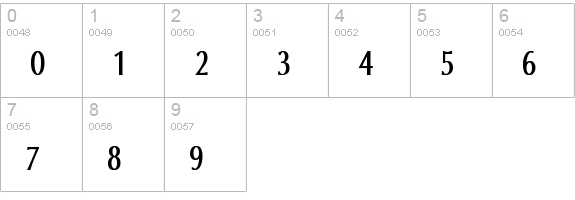
Oxford Cn Bold is a strong, high-contrast variant in the Oxford typeface family \xE2\x80\x94 well suited to headlines, attention-grabbing titles, and strong calls-to-action.
Oxford Cn Bold is a striking and versatile typeface that exudes elegance and sophistication. With its bold and distinctive design, this font is perfect for making a statement in your projects. The clean lines and sharp edges of Oxford Cn Bold make it ideal for creating eye-catching headlines, logos, and branding materials. What sets Oxford Cn Bold apart is not just its stylish appearance, but also its accessibility. This font is freely available to download at FontsMarket.com, making it a practical choice for designers looking to add a touch of class to their work without breaking the bank. Whether you're designing a website, a poster, or a business card, Oxford Cn Bold is sure to make a lasting impression.